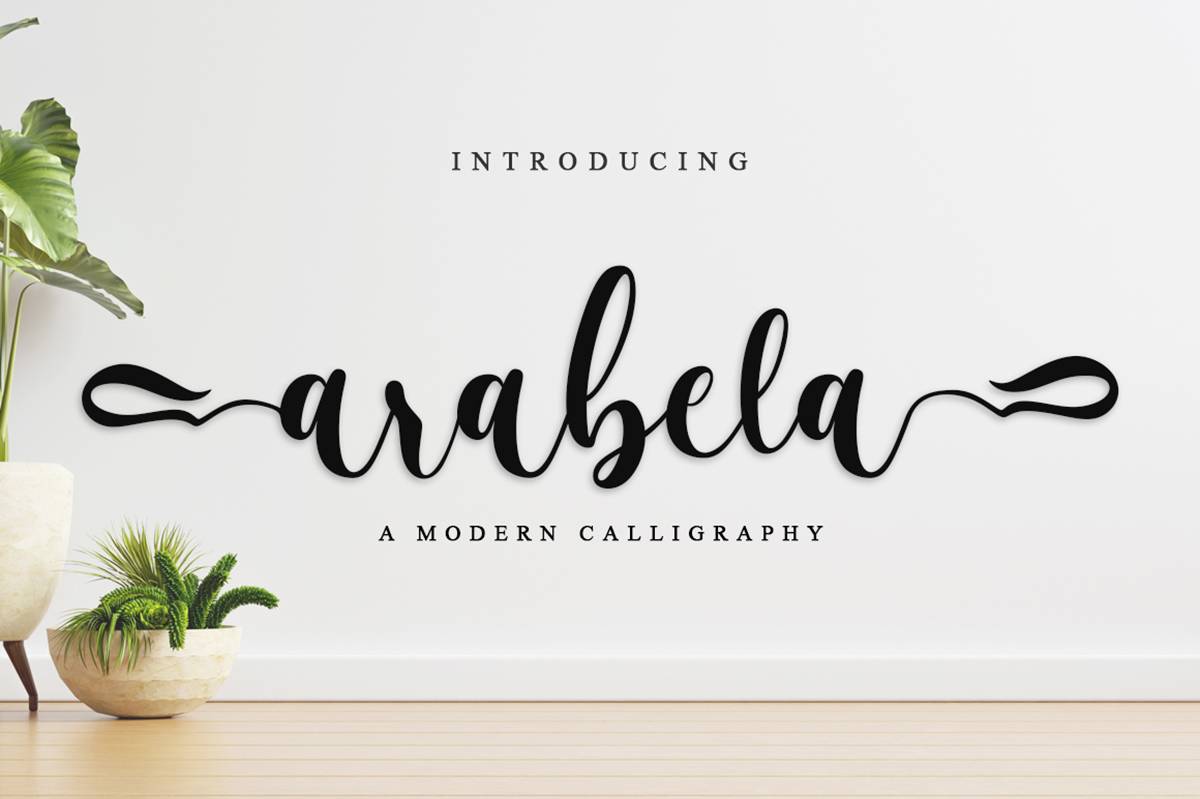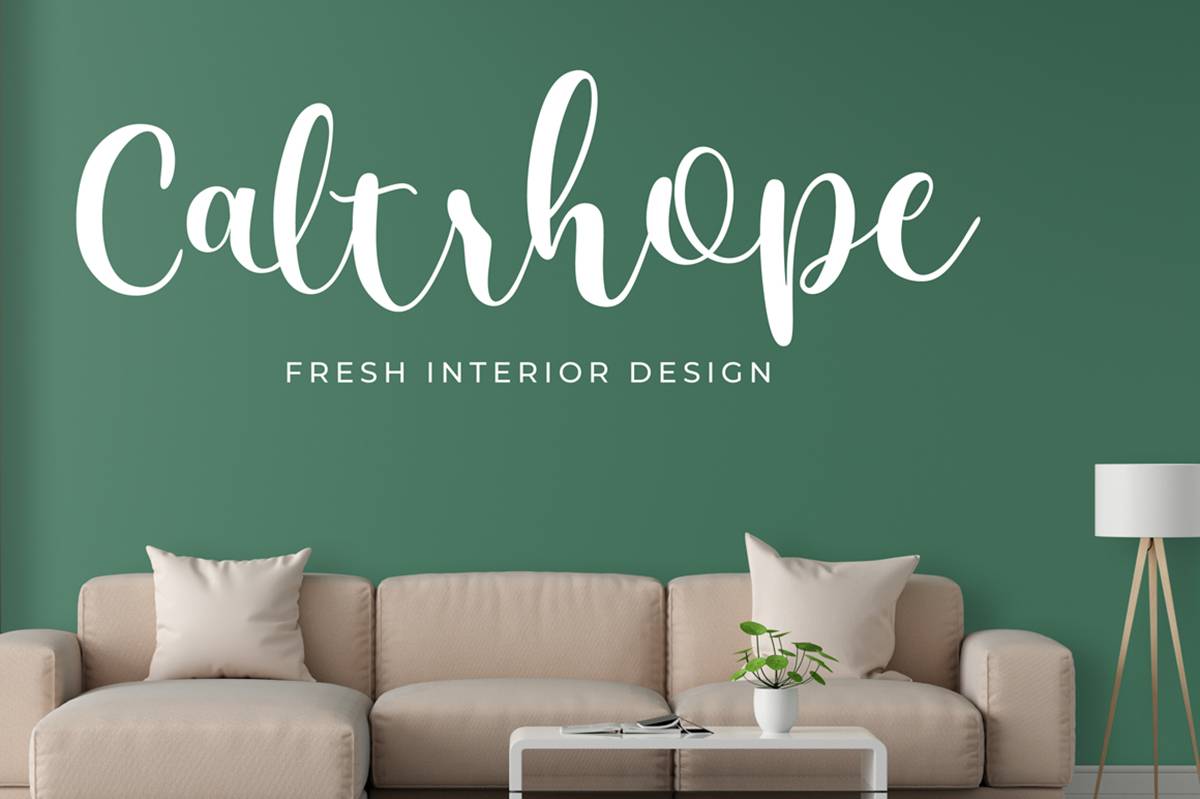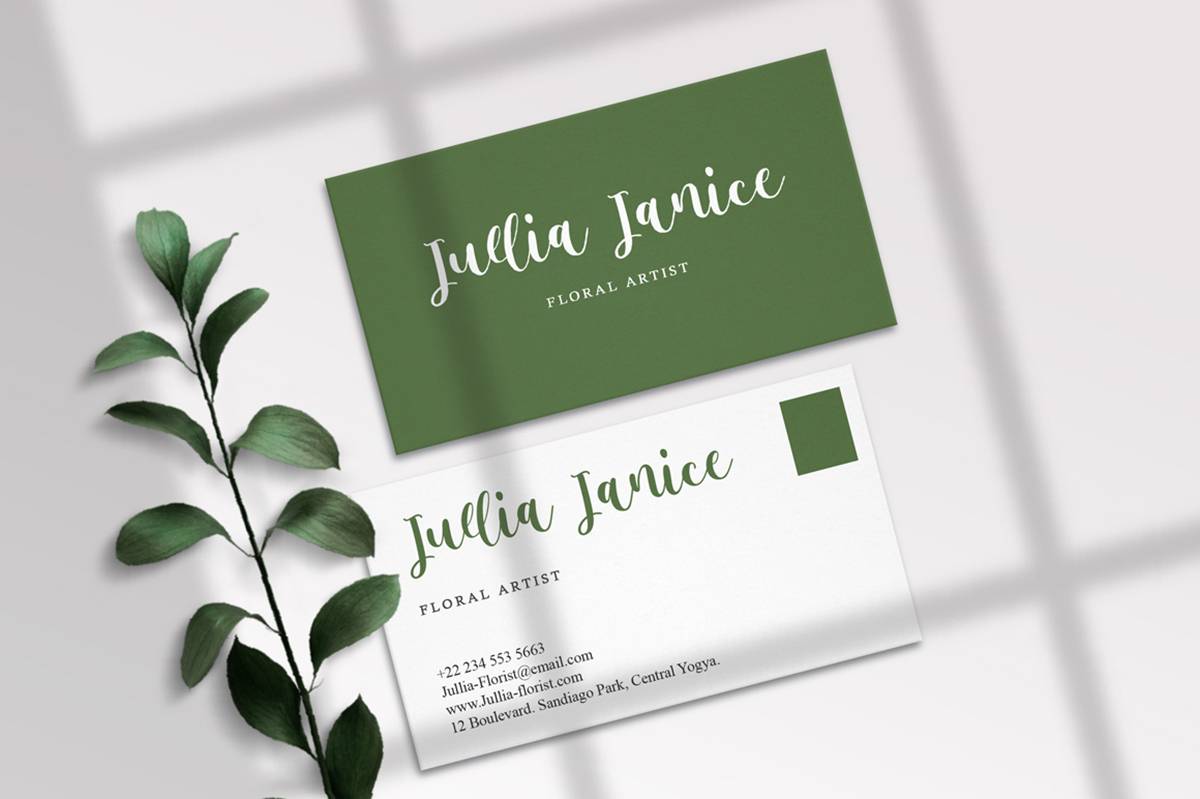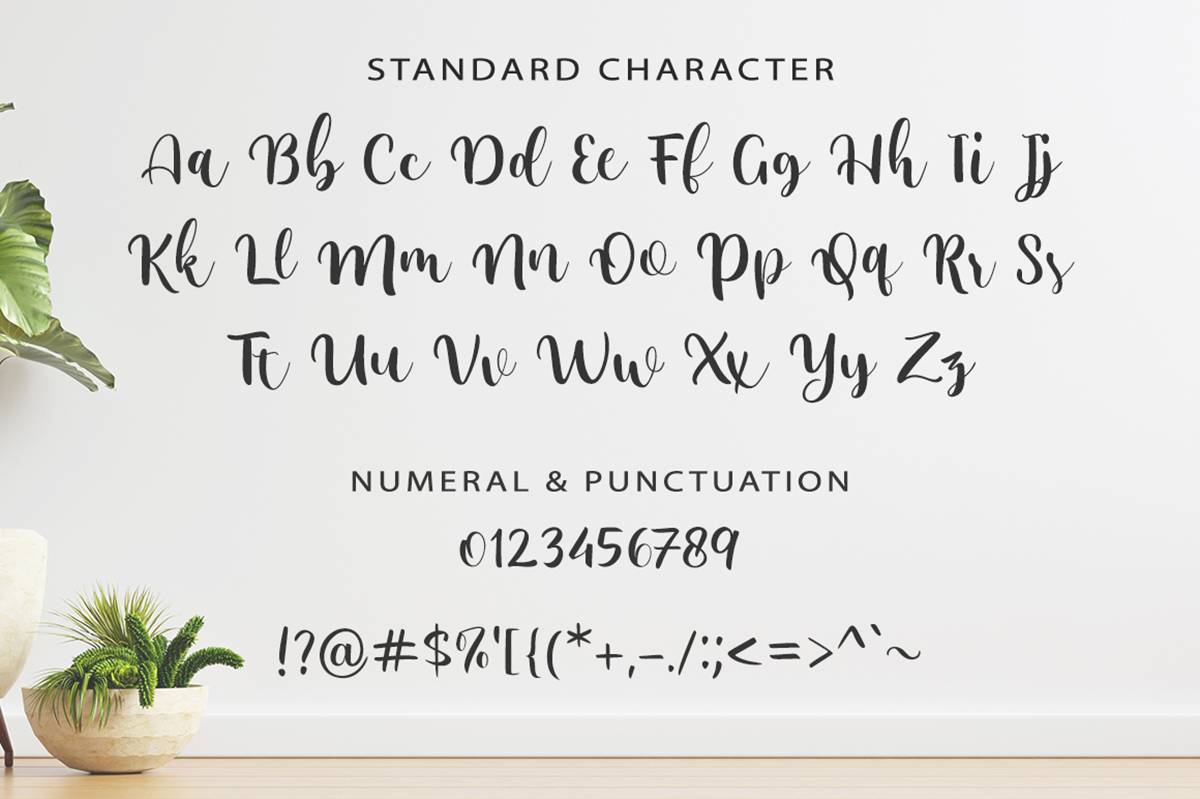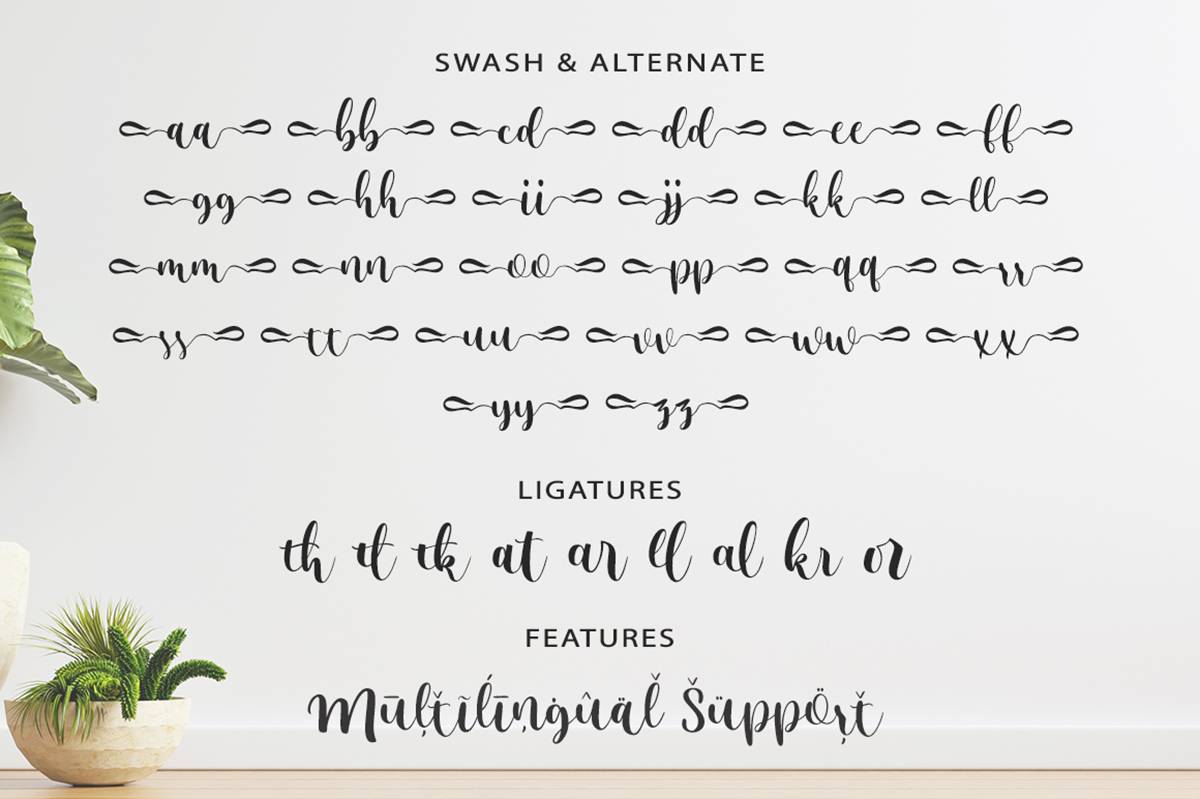
Arabela Script is an elegant, flowing handwritten font with a lively and modern feel. It combines smooth, curved strokes with delicate variations in weight, offering a graceful and approachable style that's perfect for invitations, branding, and creative projects needing a personal touch. Its casual yet refined personality makes it ideal for fashion, lifestyle, and artistic designs seeking a warm and friendly vibe.
Arabela Script Font
About Arabela Script Font
| Font family | Arabela Script Font |